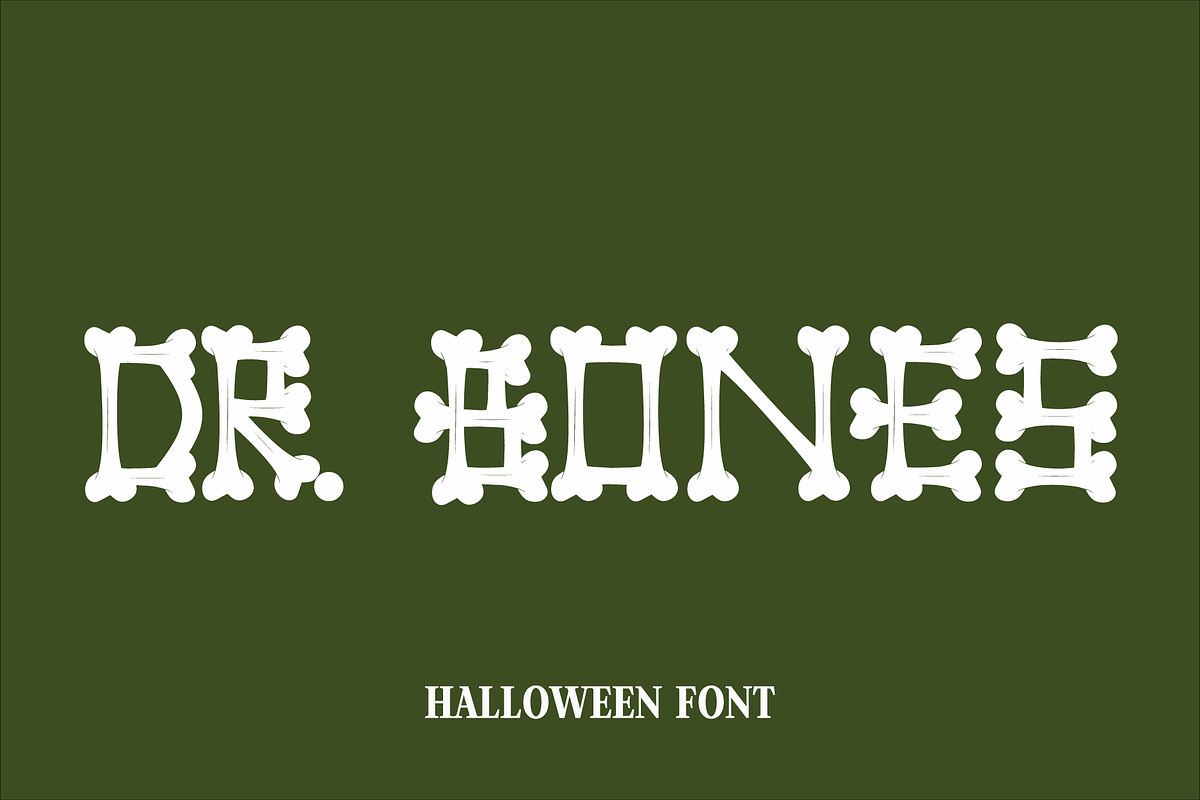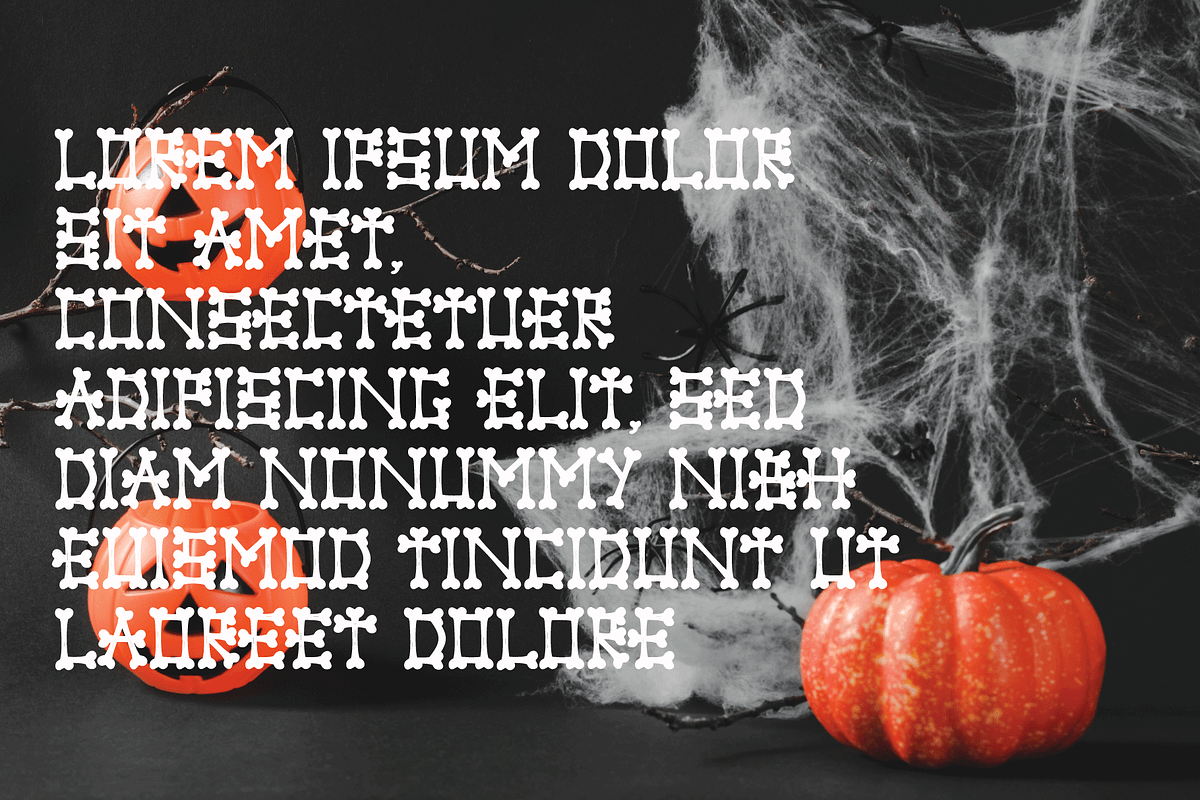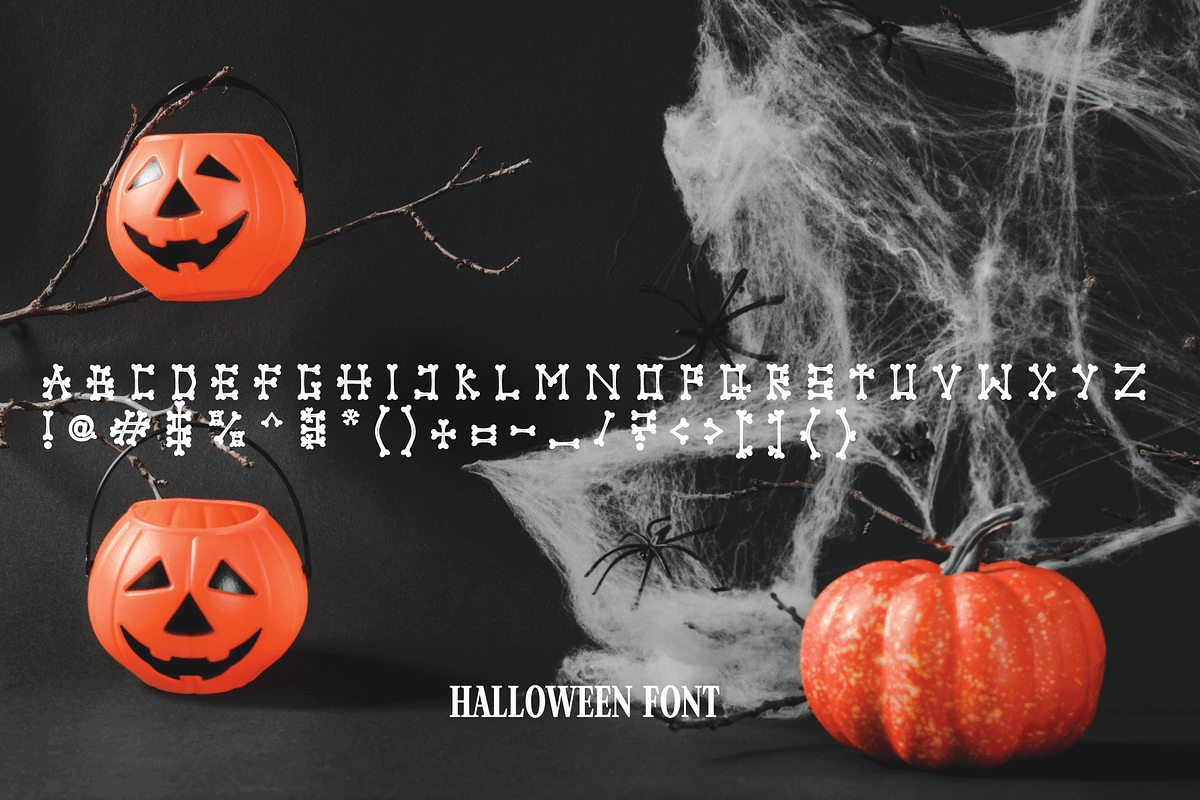
Dr. Bones - Halloween Font
Dr. Bones is one of those Halloween-themed fonts, it looks like a series of bones. Dr. Bones is good for some Halloween-themed graphic designs, such as logos, banners, posters, products, advertising, or other designs. make your design more attractive with Dr. Bones Font.